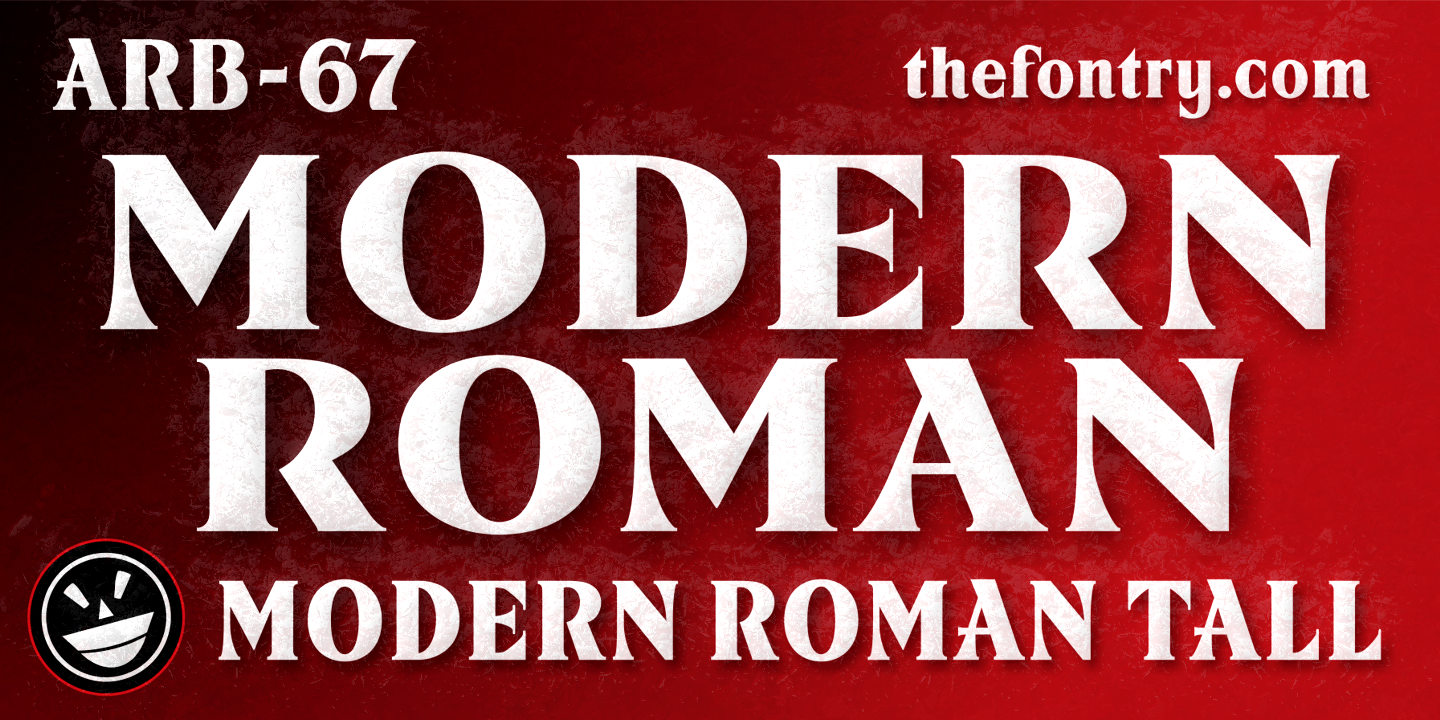
ARB 67 Modern Roman Font is perfect for luxury branding, corporate identities, book publishing, magazine layouts, formal invitations, legal documents, academic publications, architectural presentations, high-end packaging, and sophisticated web design projects. This refined typeface brings timeless elegance and professional credibility to any design application.
What makes ARB 67 Modern Roman Font so exciting is its masterful blend of classical Roman typography principles with contemporary design sensibilities. The font features perfectly balanced proportions with subtle stroke variations that create exceptional readability across all sizes. Its carefully crafted serifs provide just the right amount of traditional character while maintaining clean, modern lines that work beautifully in digital environments. The letterforms exhibit superior optical spacing and precise geometric relationships that demonstrate the highest level of typographic craftsmanship, making every word appear polished and authoritative.
The ARB 67 Modern Roman Font family includes comprehensive weights and styles: Light, Regular, Medium, Bold, and Black variations, each available in both Roman and Italic cuts. The extensive character set features uppercase and lowercase letters, lining and old-style numerals, extensive punctuation, mathematical symbols, and complete international language support including Central European and Cyrillic characters. Professional features include small caps, ligatures, stylistic alternates, and proportional spacing options.
Whether you're creating corporate communications, editorial designs, or premium brand materials, ARB 67 Modern Roman Font Free Download provides the sophisticated typography foundation that elevates any project. Its exceptional legibility makes it ideal for both display and text applications, while its classical proportions ensure timeless appeal that transcends design trends. The font's versatility and refinement make it an essential tool for designers who demand the highest standards of typographic excellence in their professional work.